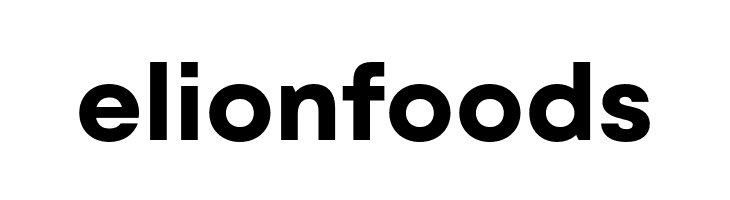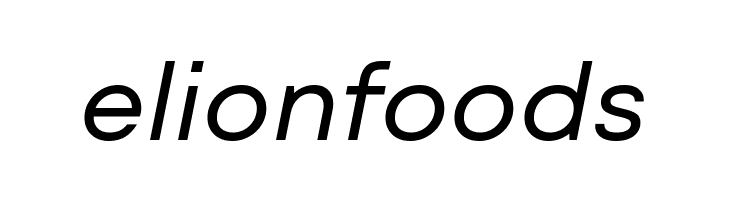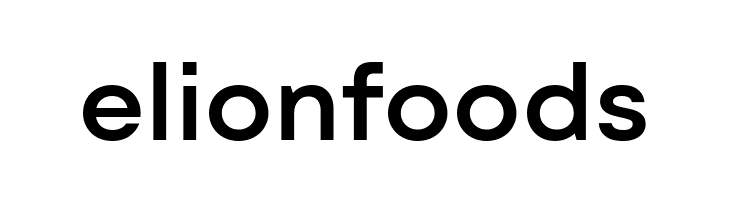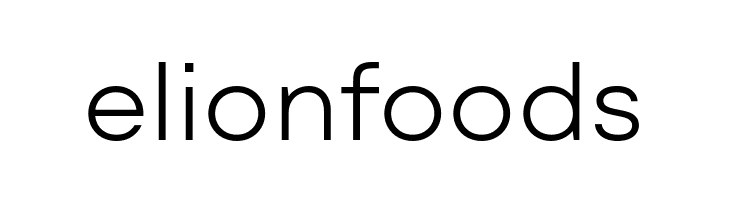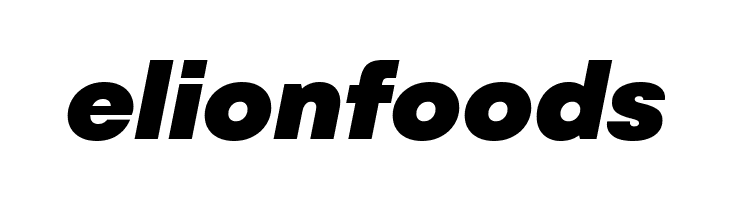
A bold, modern sans-serif font with geometric lines and uniform strokes.
A modern, semi-bold italic sans-serif font with a sleek and dynamic appearance.
A sleek, modern italic font with clean lines and balanced proportions.
A modern, geometric sans-serif font with uniform strokes and excellent readability.
A clean, modern sans-serif font with a semi-bold weight and balanced design.
A bold and italic font with a modern and dynamic style.
A sleek, thin italic font with a modern and elegant style.
A modern, light sans-serif font with clean lines and excellent legibility.
A bold and robust font with rounded edges and strong presence.
A bold, italic font with a modern and dynamic style.